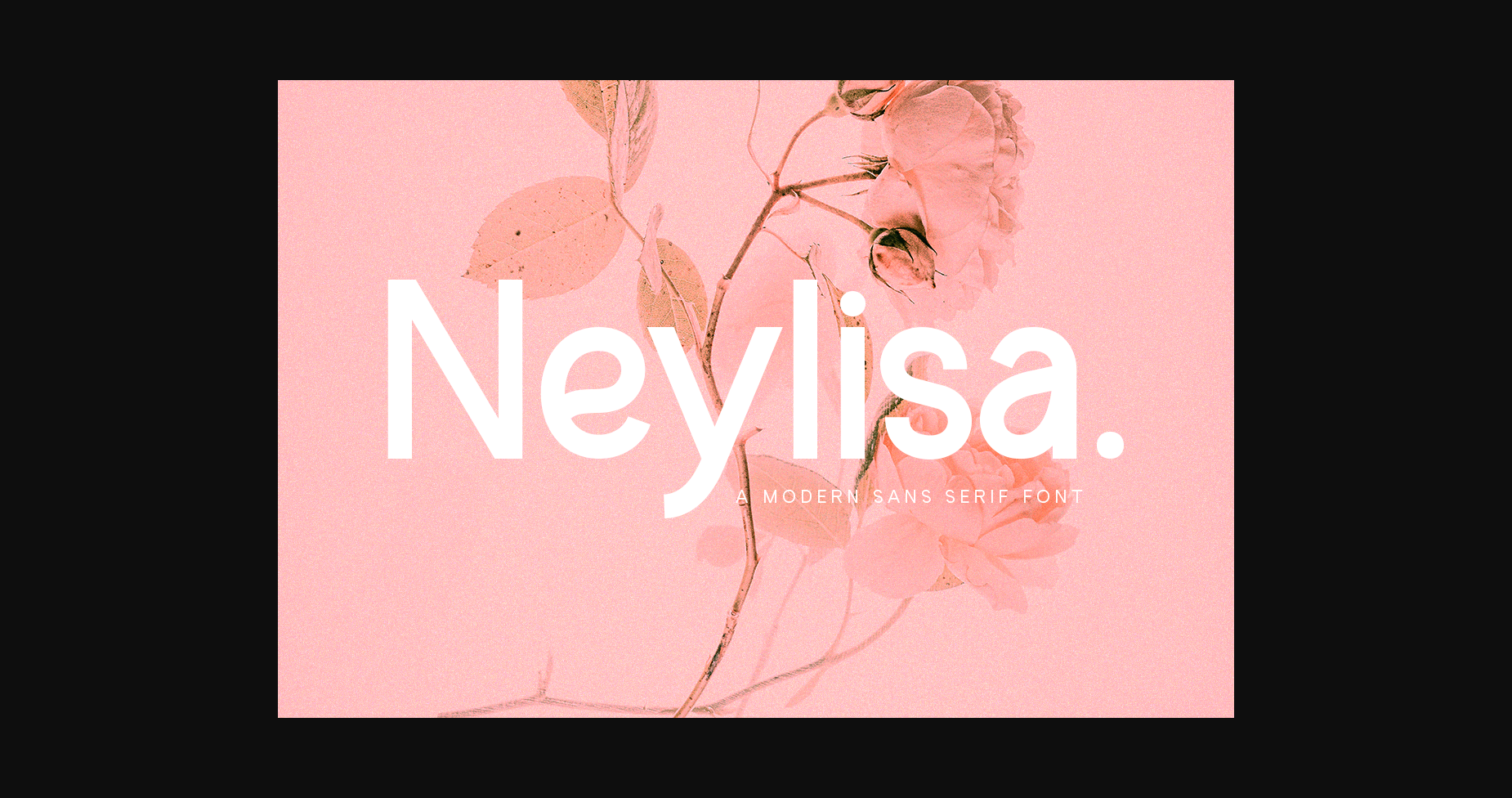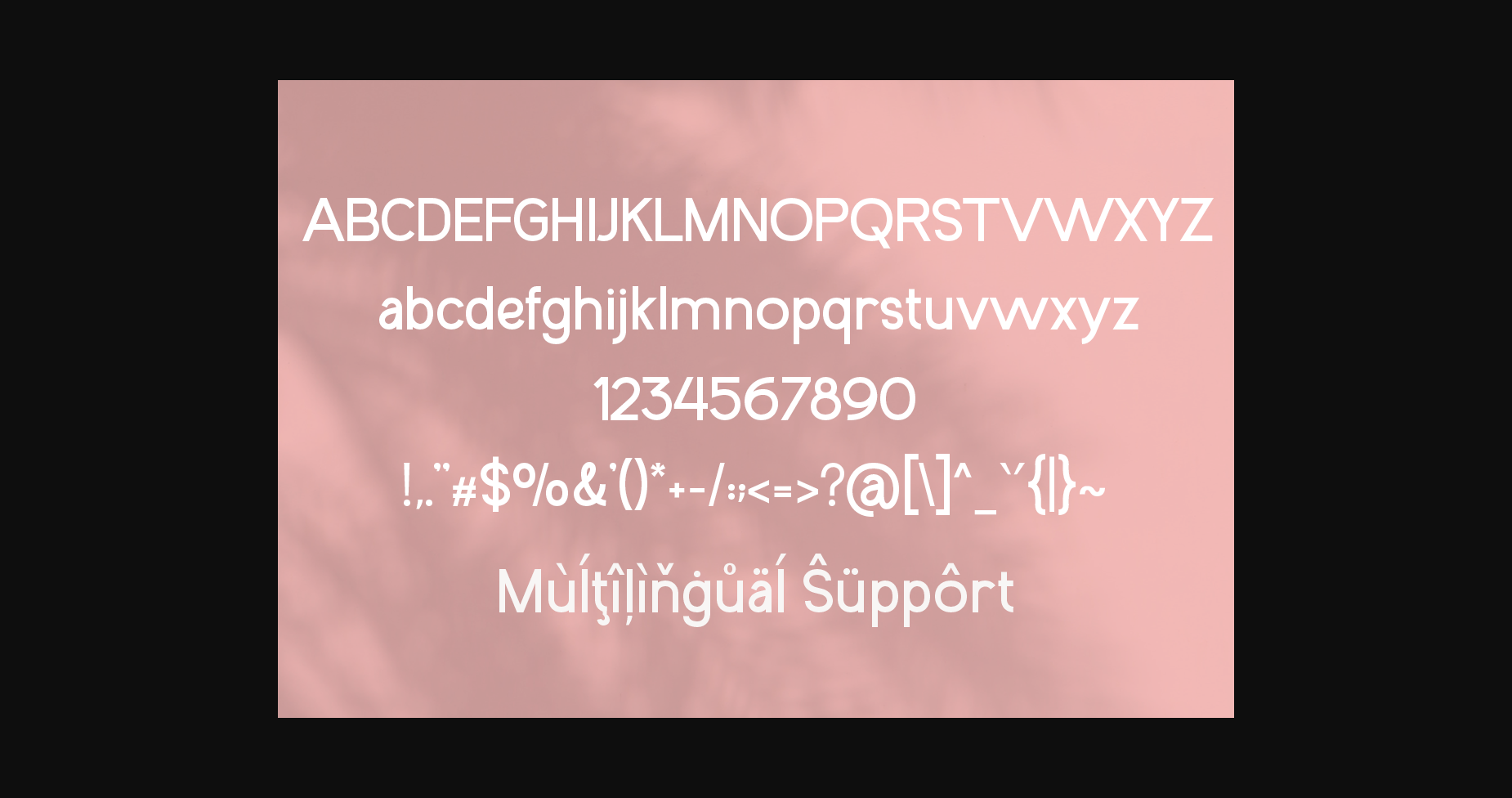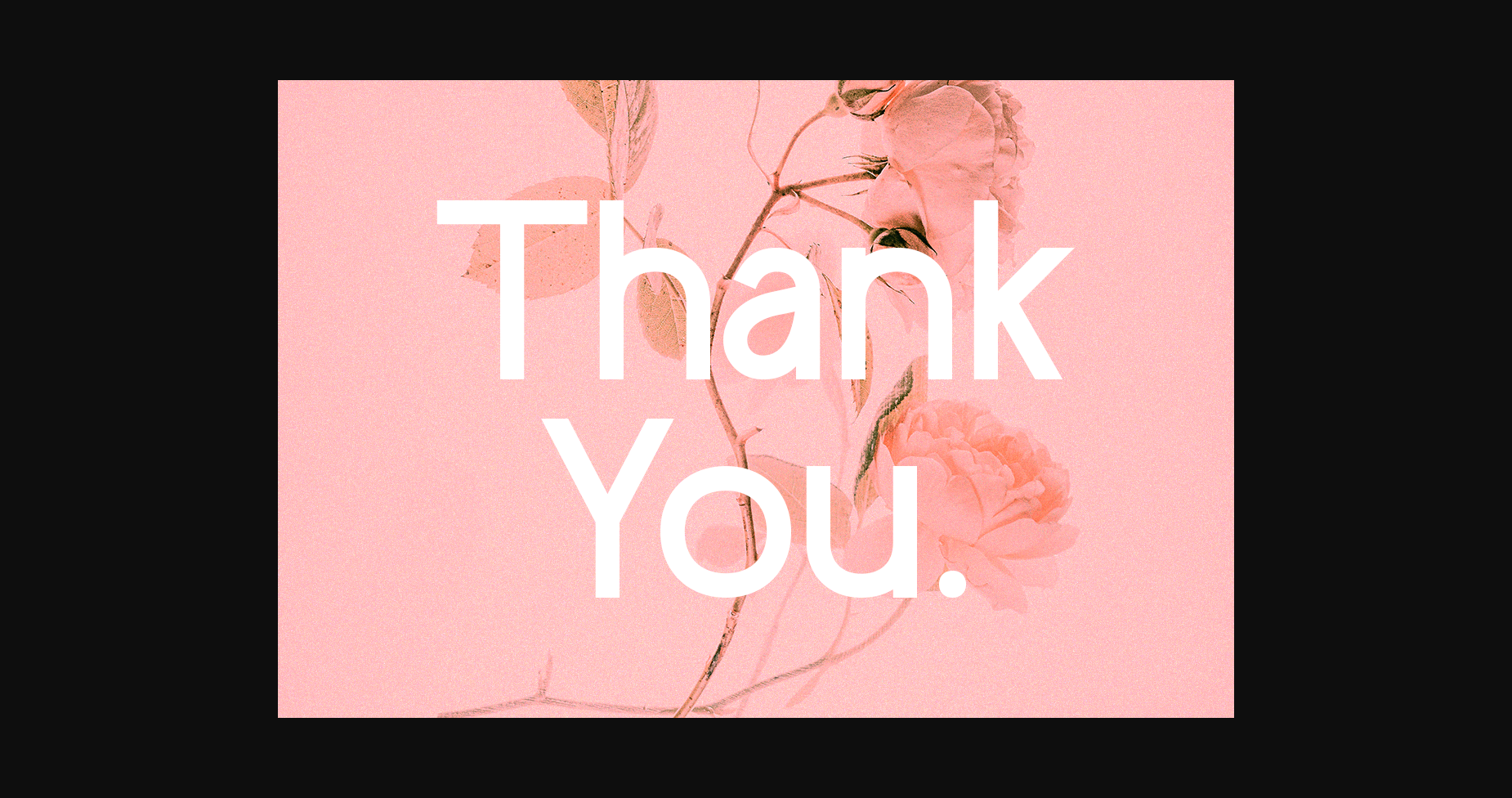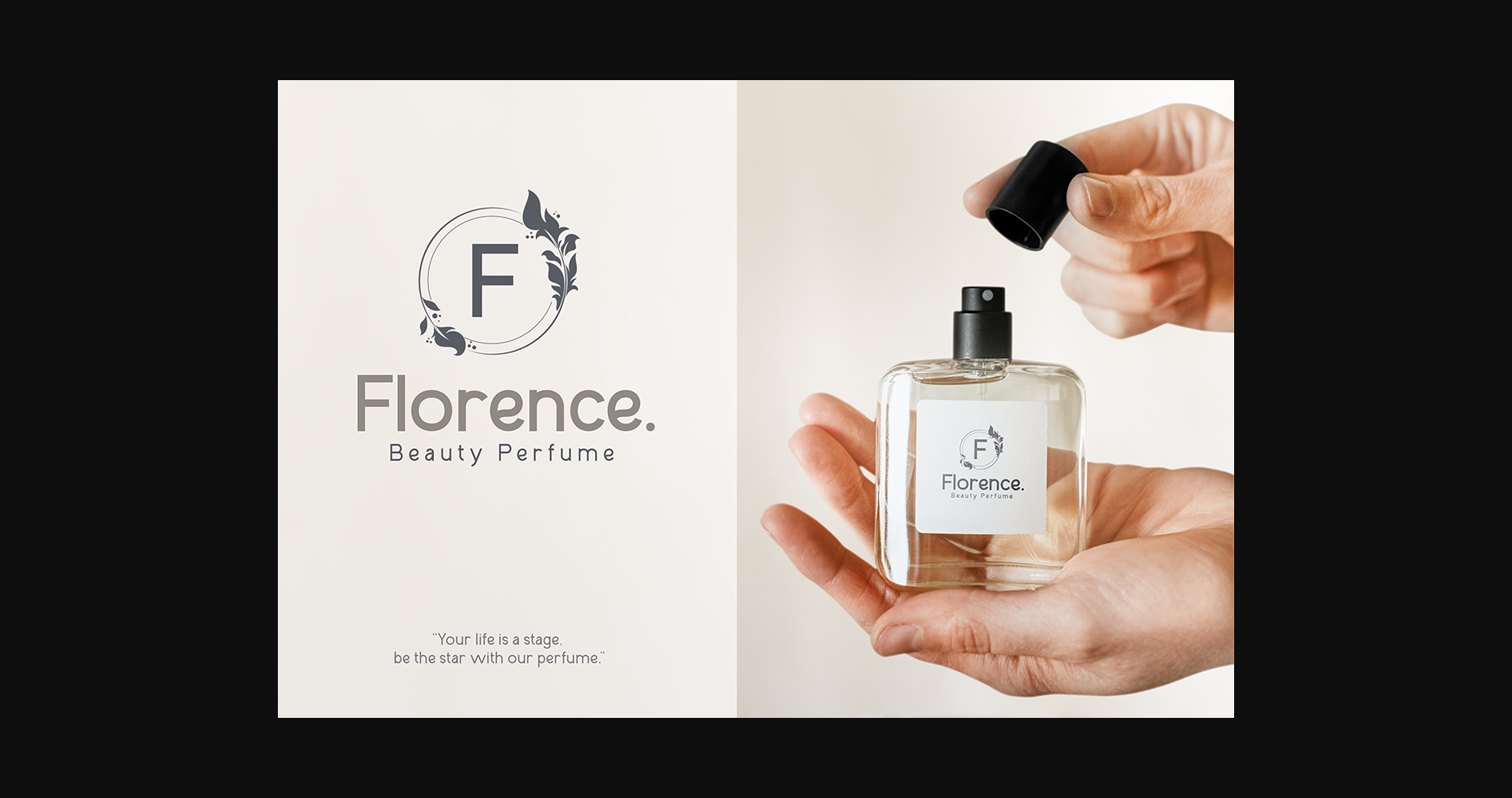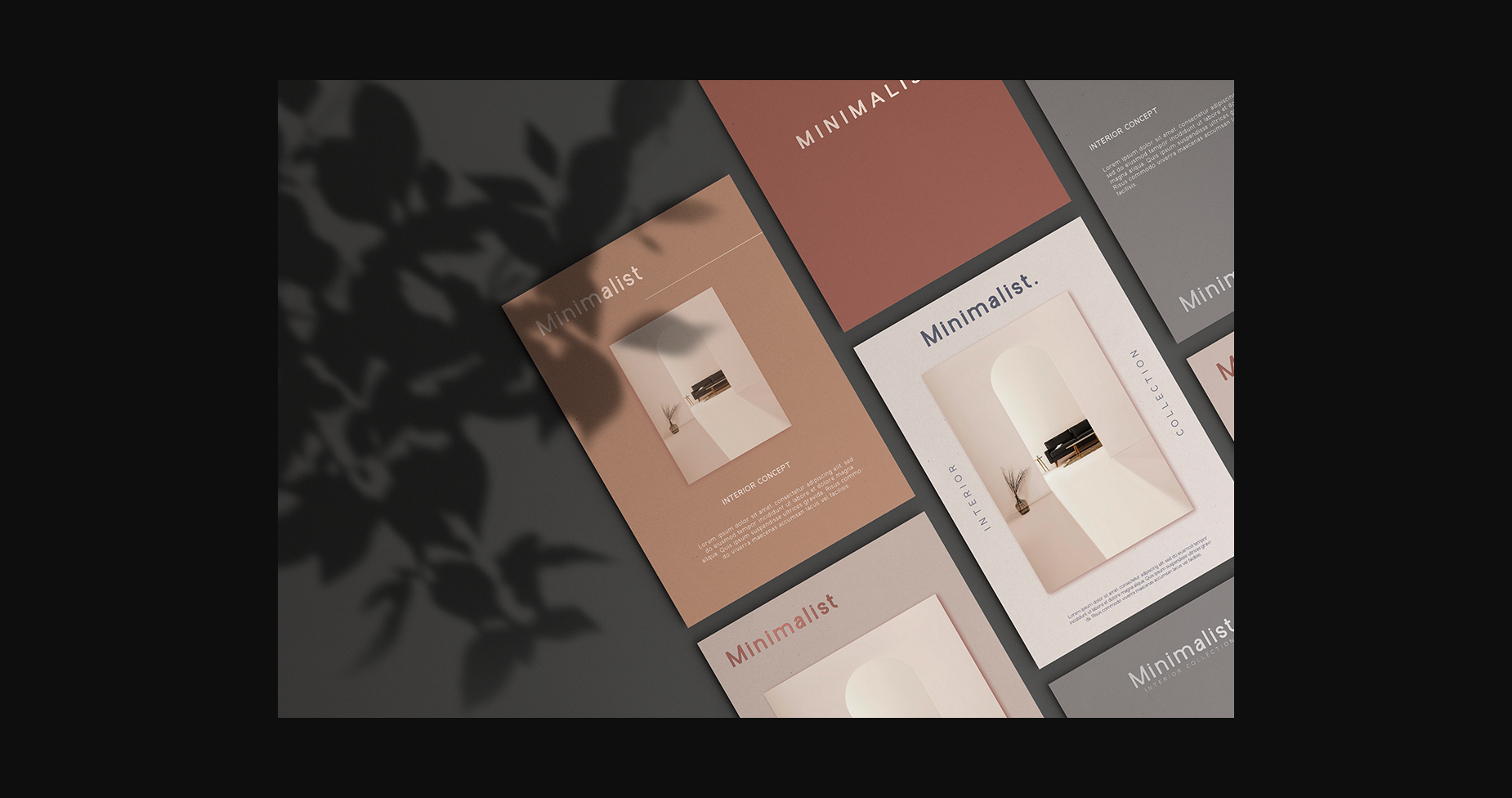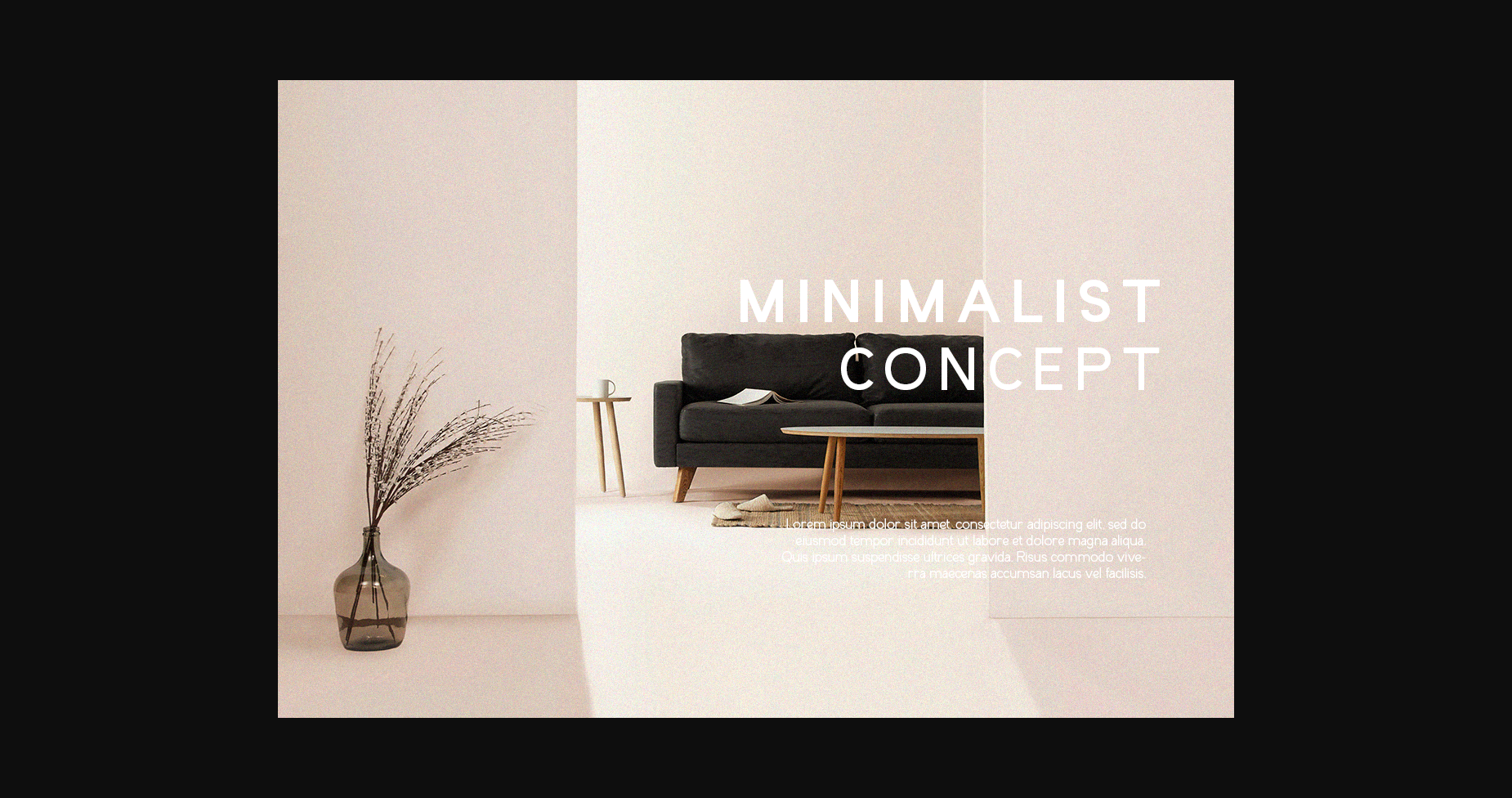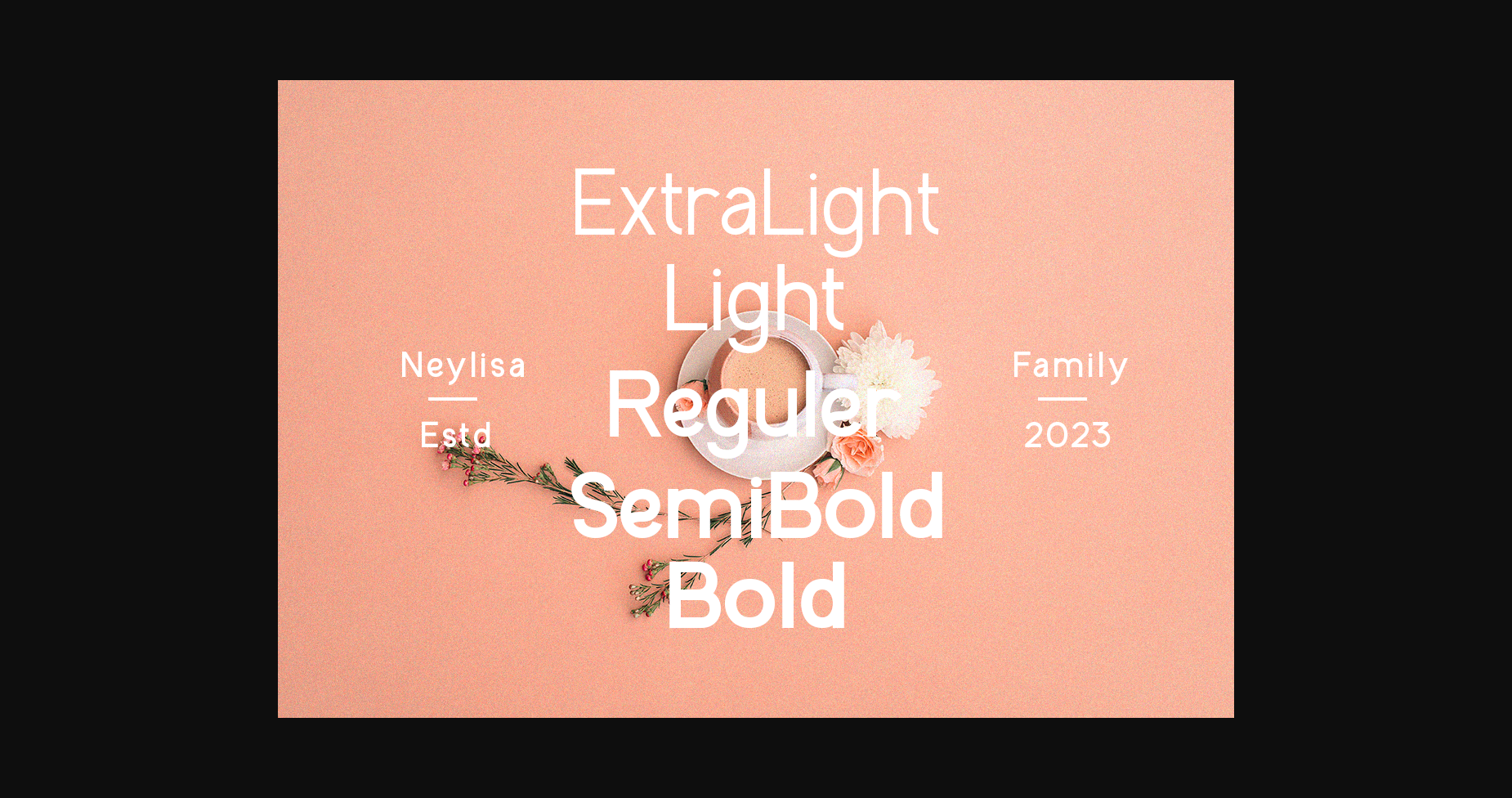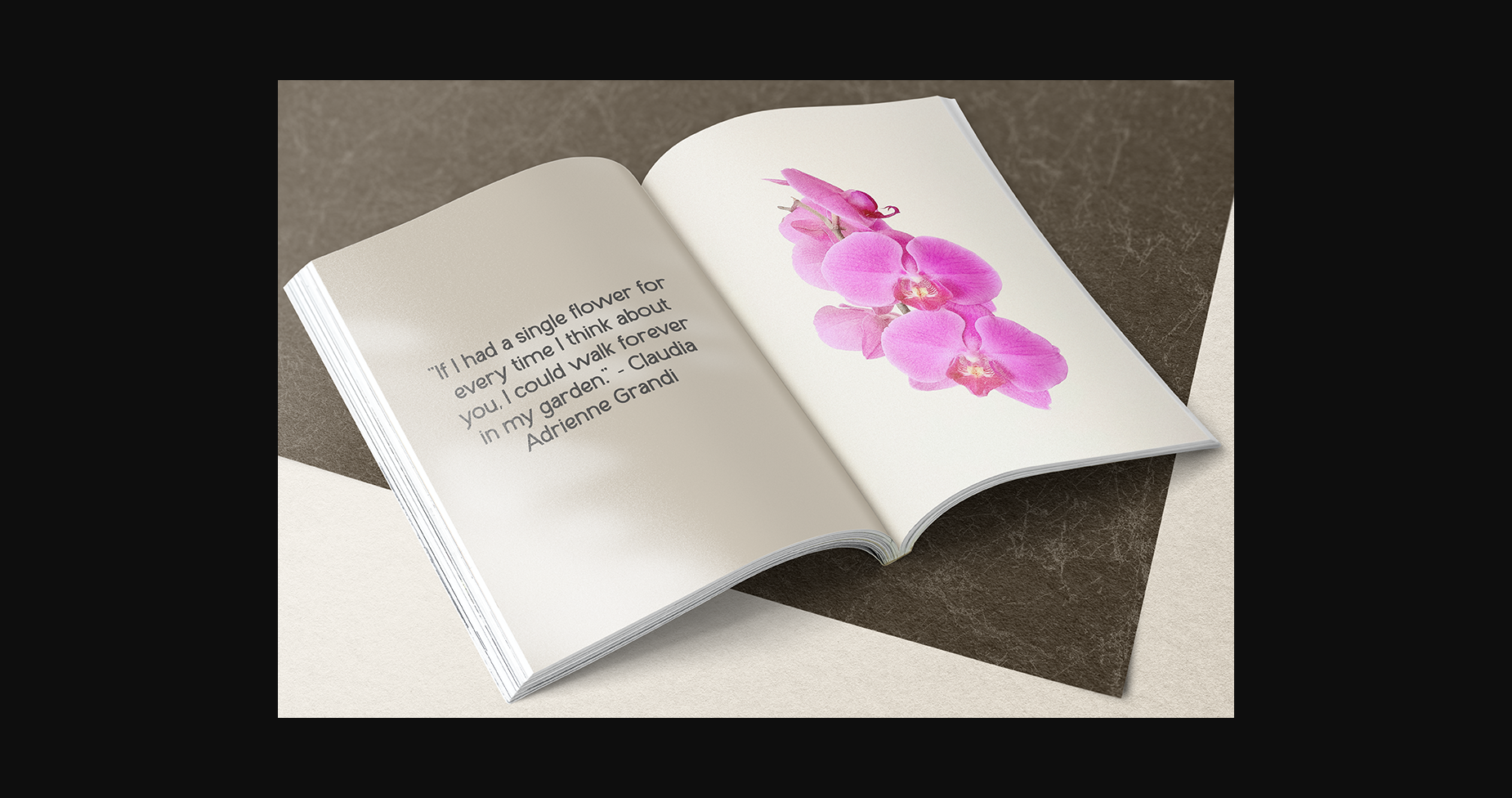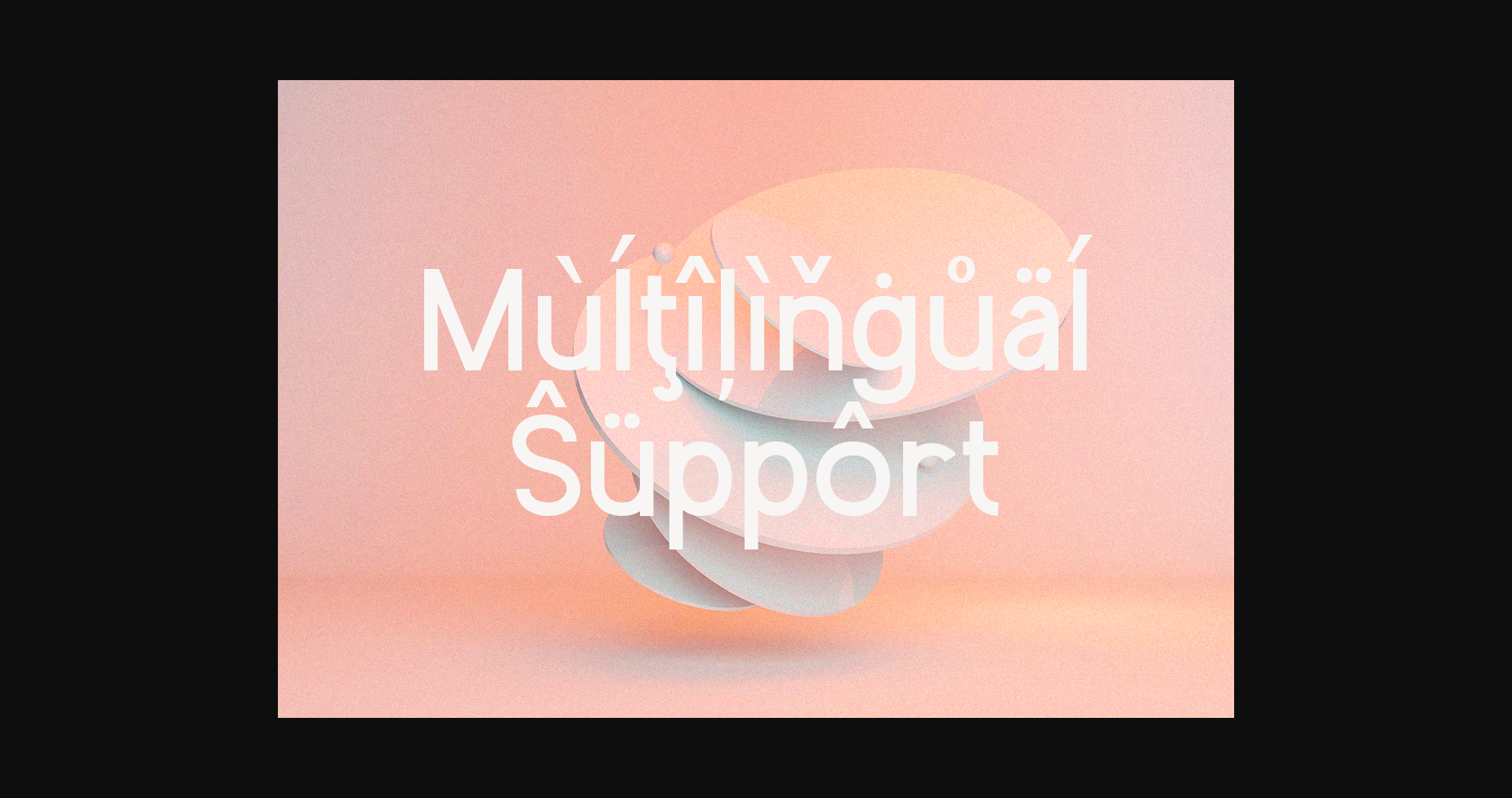
HomeSans Serif FontsNeylisa Font Sans Serif Fonts Neylisa Font FacebookXPinterestWhatsApp 1 of 11 ... Neylisa Font Poster 2... Neylisa Font Poster 3... Neylisa Font Poster 4... Neylisa Font Poster 5... Neylisa Font Poster 6... Neylisa Font Poster 7... Neylisa Font Poster 8... Neylisa Font Poster 9... Neylisa Font Poster 10... Neylisa Font Poster 11... About Neylisa Font Neylisa is a bespoke & minimalist sans serif typeface that is perfectly suited for designing unique logos & brands, bold packaging, powerful website headers, and so much more! DOWNLOAD NOW People also explored Hancik Font Gelisa Font Shining Love Font Cute Aeshly Font Qomallida Font College Vintage Font Australia Font Melanie Font Balinice Font 307 0 TagsNeylisaNeylisa Font Previous articleGracelyn FontNext articleClockwork Lemon Font LEAVE A REPLY Cancel reply Comment: Please enter your comment! Name:* Please enter your name here Email:* You have entered an incorrect email address! Please enter your email address here Website: Save my name, email, and website in this browser for the next time I comment. Personal Use Free Fifteenth Century Personal Use Free Read more about this font Equalizer Script Personal Use Free Read more about this font 5cent Free Graffiti Personal Use Free Read more about this font Lemon Milk Font Personal Use Free Read more about this font BLOG Free Fonts Risk: Why Free Fonts Can Be Dangerous for Designers Free Fonts Risk: Why Free Fonts Can Be Dangerous for Designers Using free fonts is a common practice in web and graphic design. However, the... Using Fonts in Digital Marketing: Tips to Strengthen Your Brand Identity How to Cut Any Font on Cricut: Convert a Font to SVG (Free) Fonts That Capture the Spirit of New York City